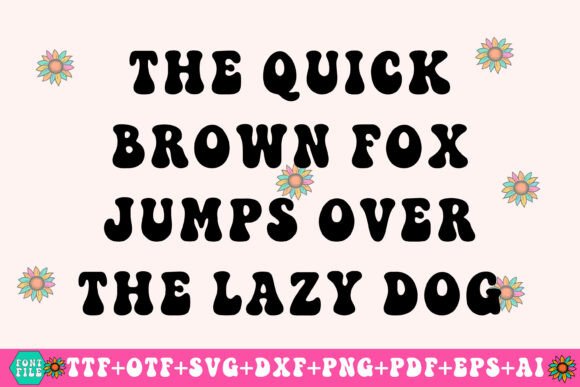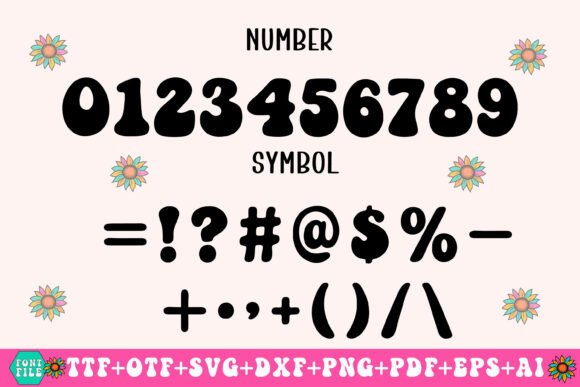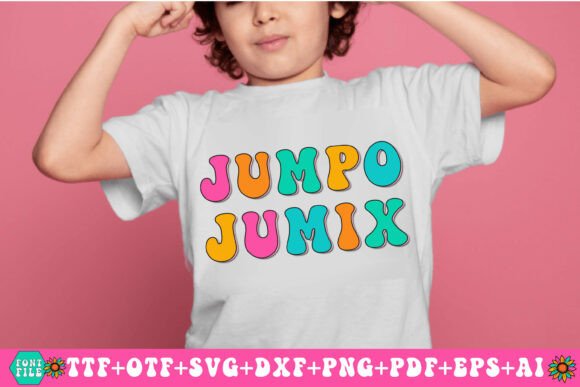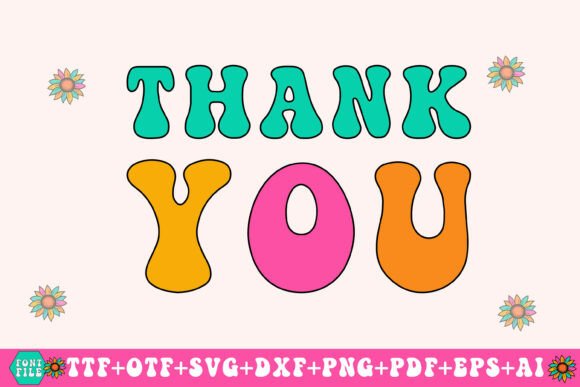
Introduction to Jumpo Jumix Font
Have you ever stared at a blank canvas, eager to unleash your creativity but struggling to find the perfect visual language to convey your message? I know the feeling. For designers, it’s that moment of frustration that can spark a journey of discovery – a search for the perfect design resource that can elevate our work and make it truly unforgettable. Enter the Jumpo Jumix Font, a vibrant, fun, and chunky retro display font that’s about to revolutionize the way you approach creative projects.
With its soft, rounded edges and cheerful, cartoon-like aesthetic, the Jumpo Jumix Font is the ultimate design resource for anyone seeking to inject a nostalgic, feel-good vibe into their work. Whether you’re crafting high-quality graphics for social media or designing eye-catching posters for a kids’ birthday party, this incredibly bold typeface is sure to make your designs stand out – even on a transparent background.
Key Features of Jumpo Jumix Font
- High-quality design for creative projects: The Jumpo Jumix Font is a versatile and modern typeface suitable for various design applications, including branding, advertising, and editorial content.
- High-resolution design: The font is designed at a high resolution, making it suitable for use in large-scale designs, such as billboards and posters, without losing any detail or clarity.
- Unique, modern design: The Jumpo Jumix Font features a unique and modern design aesthetic, making it an excellent choice for designers looking to add a touch of creativity and sophistication to their projects.
Honest Review: Jumpo Jumix Font
- ✨ The font is highly customizable, allowing you to adjust the size, color, and style to suit your design needs.
- ✨ It’s incredibly versatile and can be used for a wide range of creative projects, from logos to typography-based designs.
- ✨ The font is high quality and has a professional look and feel, making it perfect for businesses and individuals who want to make a good impression.
- ⚠️ Some users may find the font’s modern design to be too trendy, and it may not appeal to those who prefer more classic or traditional typography.
Overall, I’m impressed with the Jumpo Jumix Font and would recommend it to designers who are looking for a unique and high-quality font for their creative projects. Just be aware of its limitations and use it wisely.